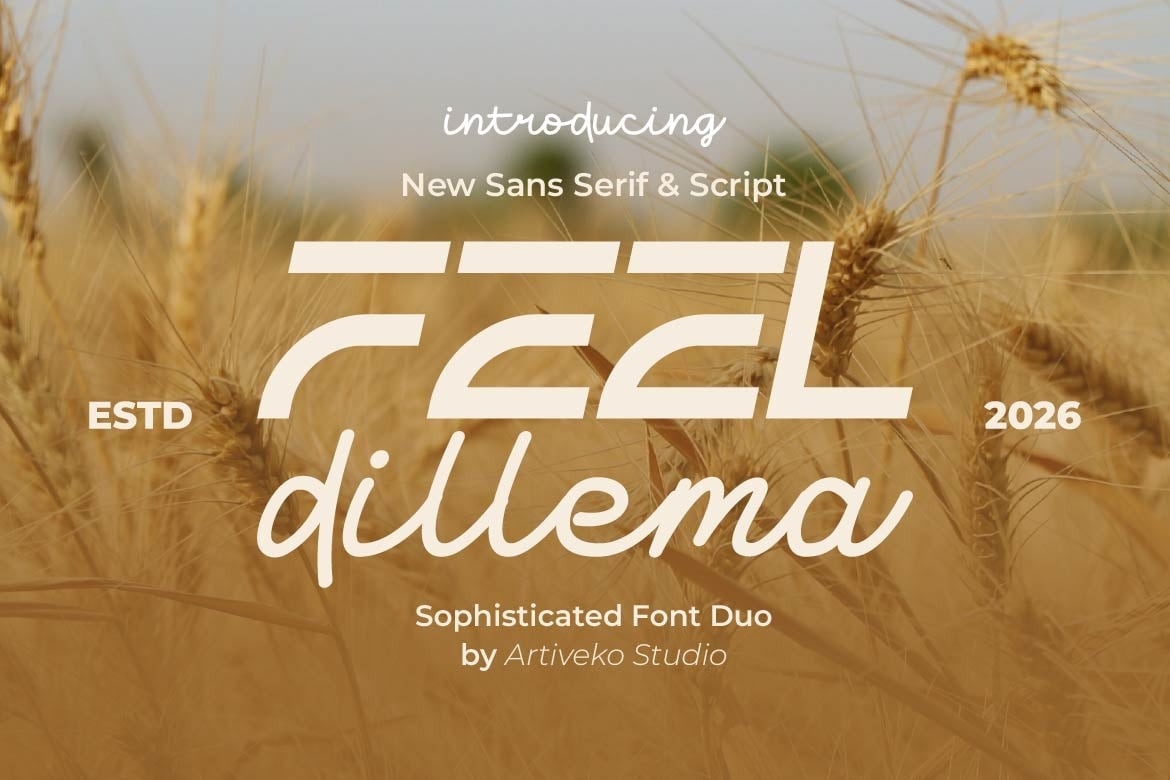
Feel Dillema Font Duo
Feel Dillema Font Duo is a flexible and reliable font created to fit multiple design needs, from branding and packaging to social media and editorial layouts. Feel Dillema Duo – Sans Serif & Script Font Duo. This font is perfect for posters, social media posts, branding, personal projects, etc.